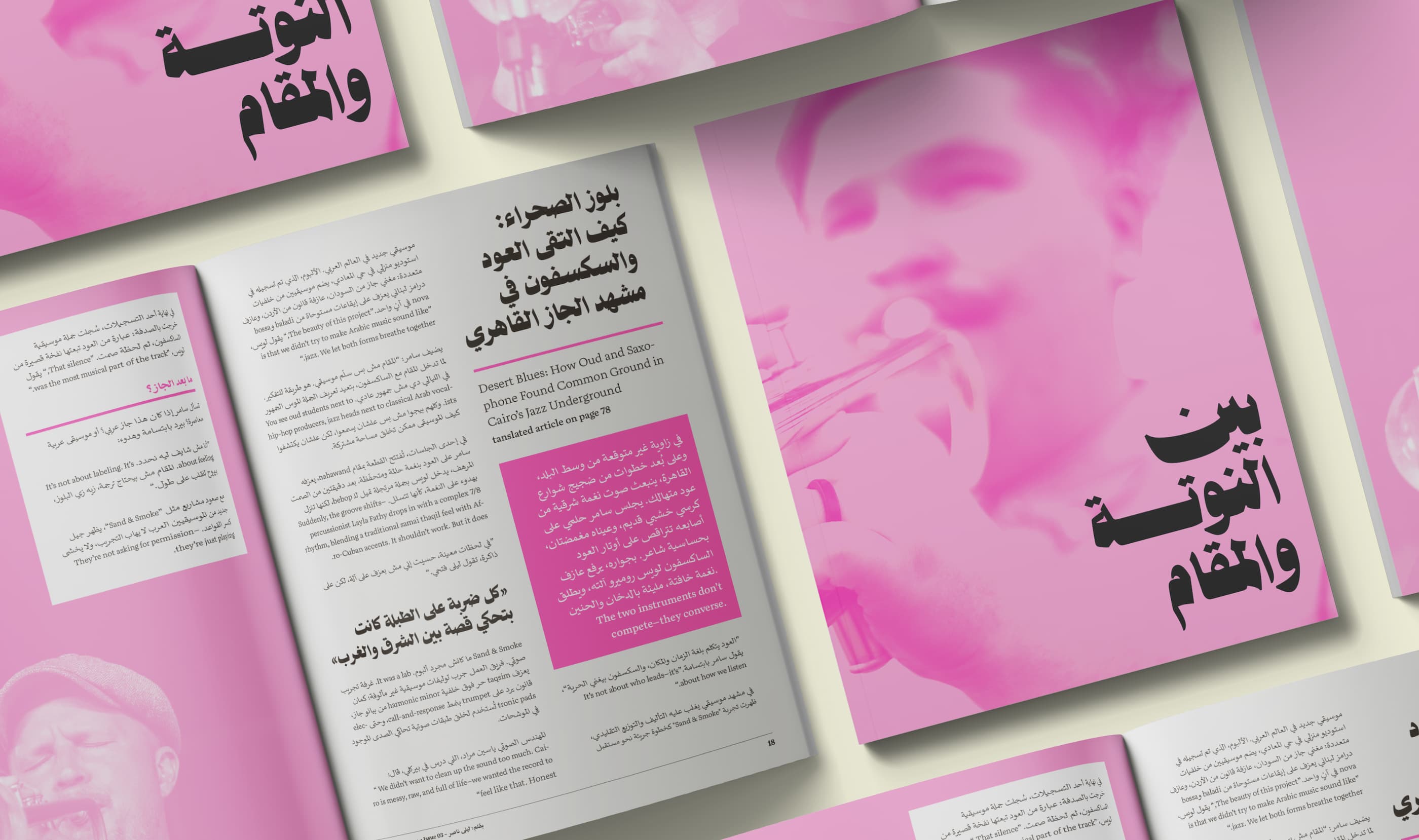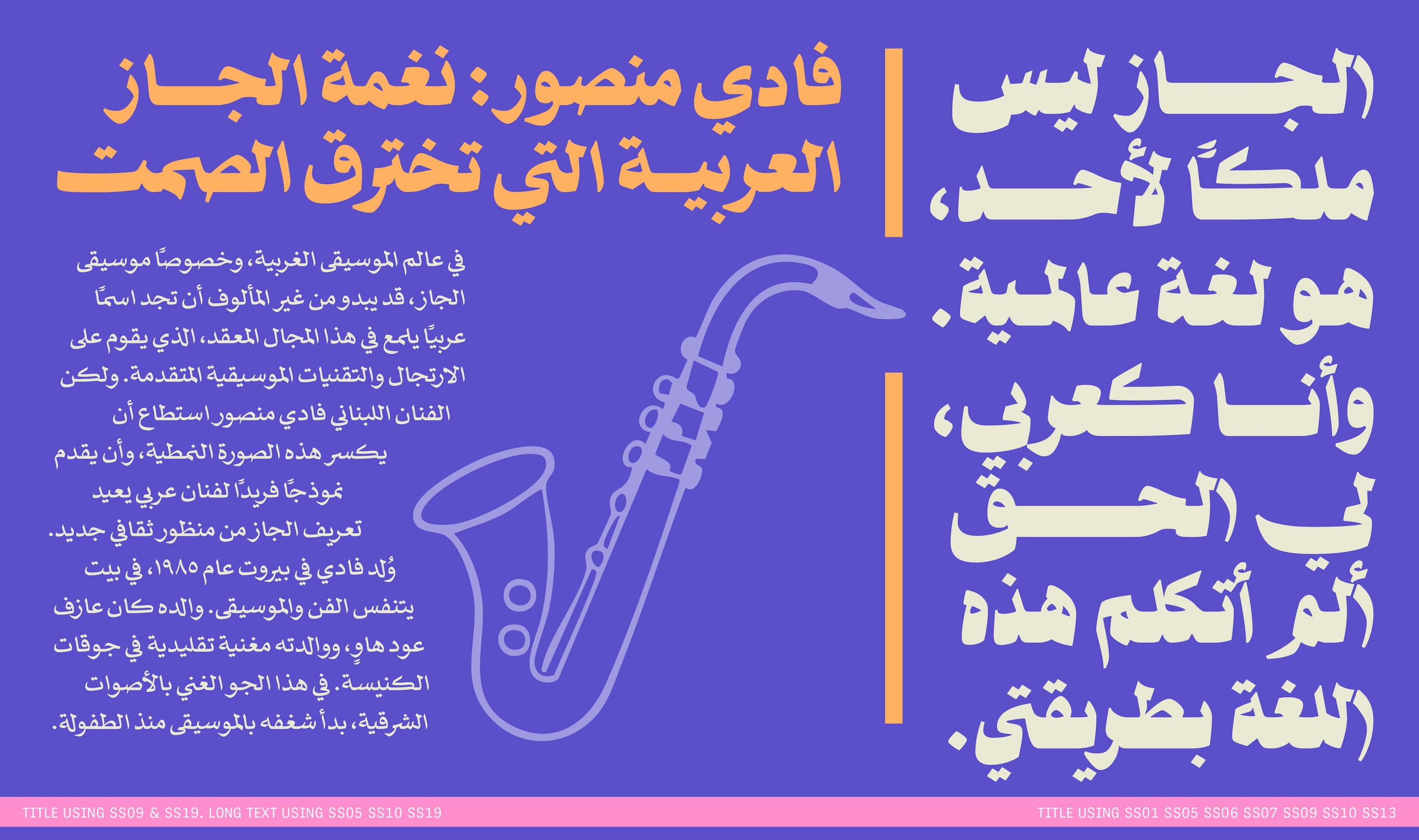
The Sakkal Saad font family is a friendly, handwritten Naskh with both a modern feel and a nostalgic vibe. Inspired by the energetic and expressive typography of Middle Eastern newspapers, magazines, and posters from the 1960s–1980s, it captures the vibrancy and optimism of that era while adding a contemporary twist.